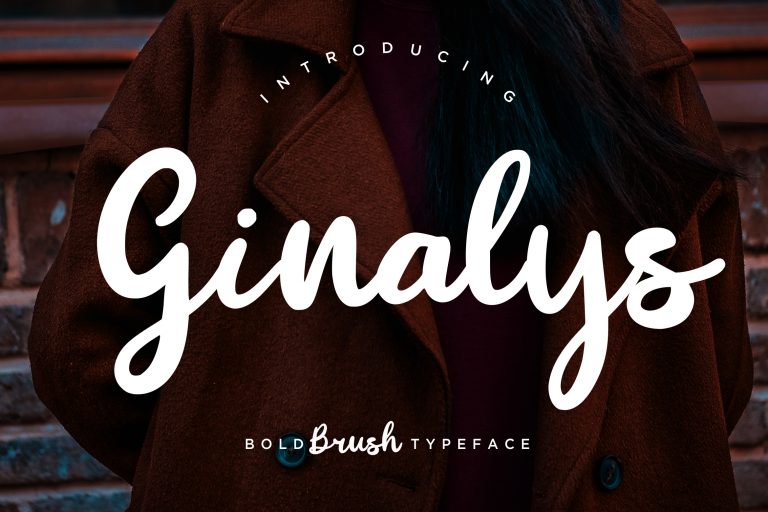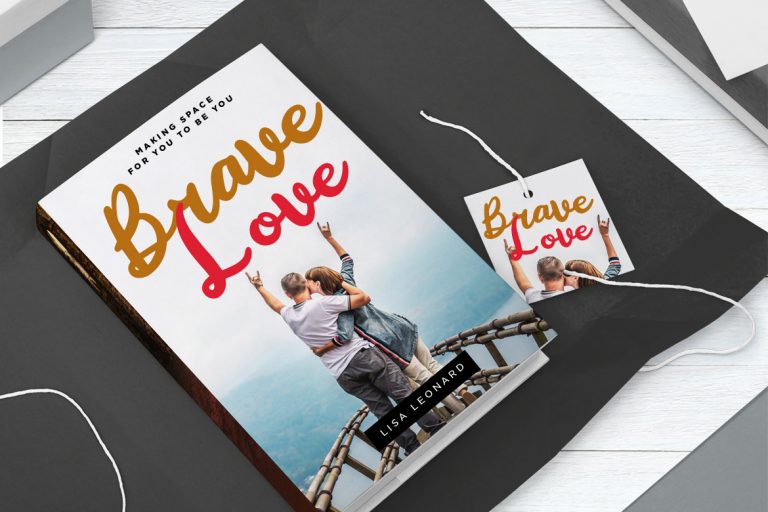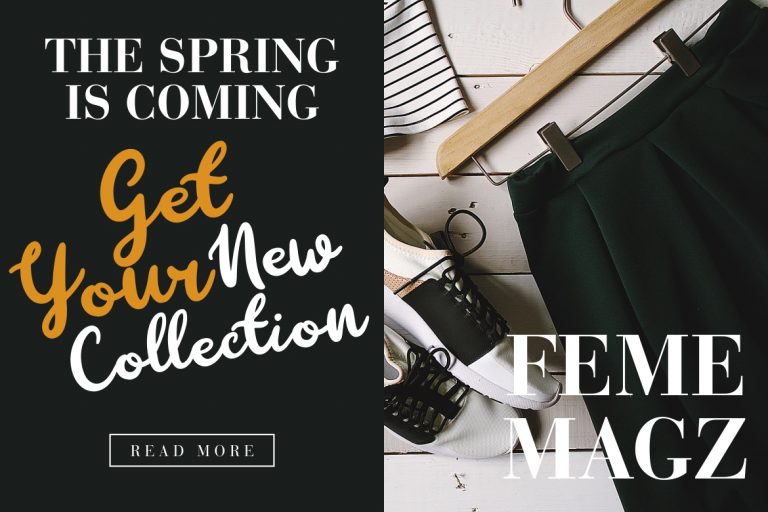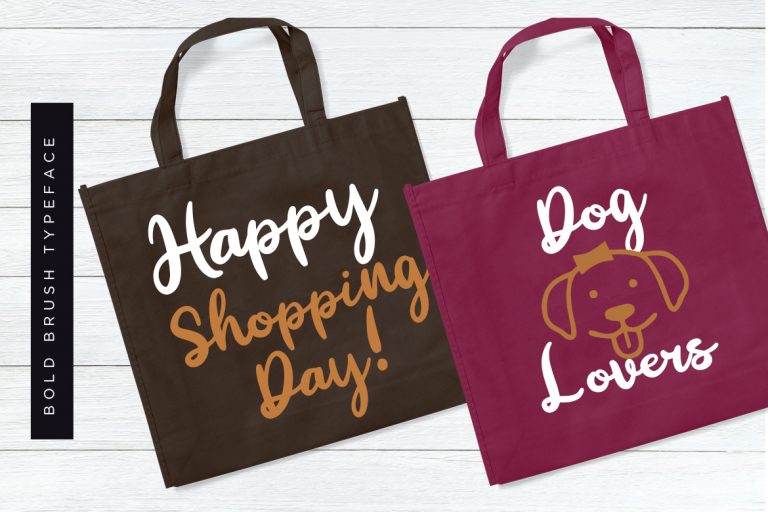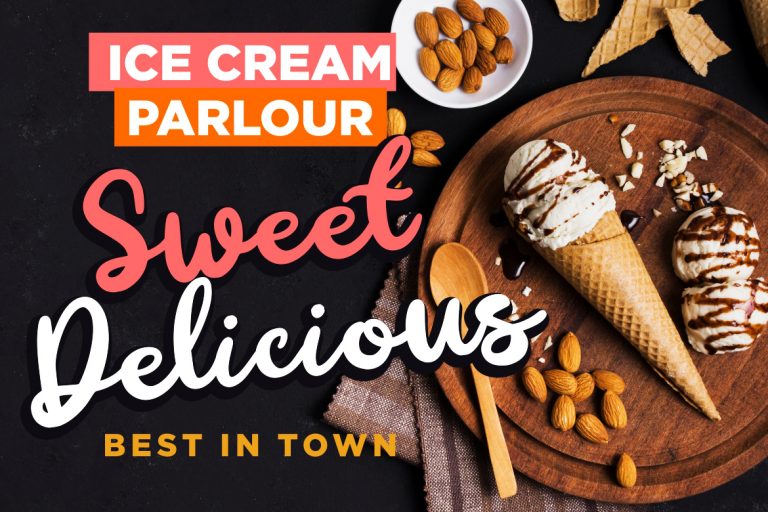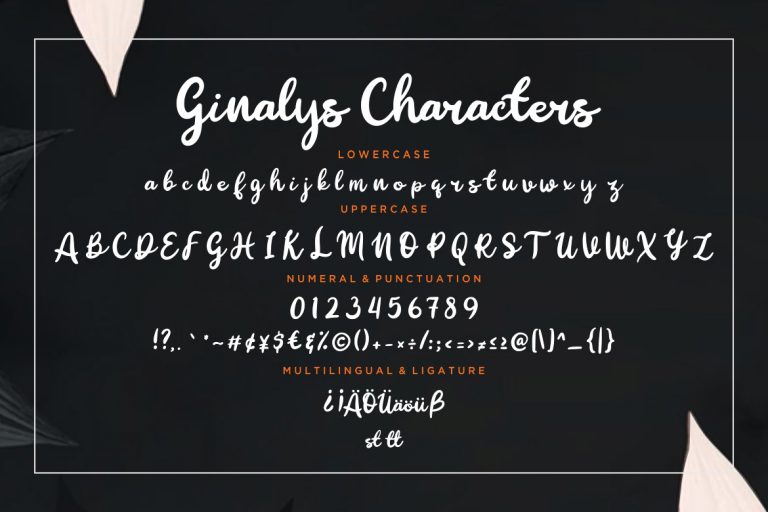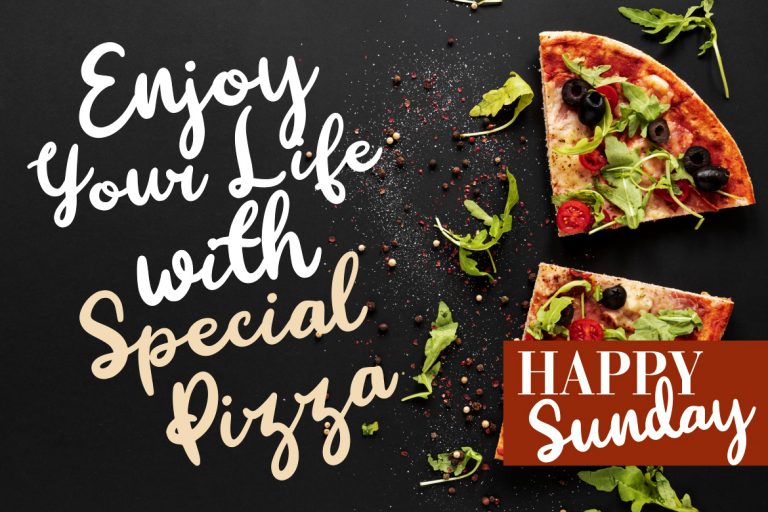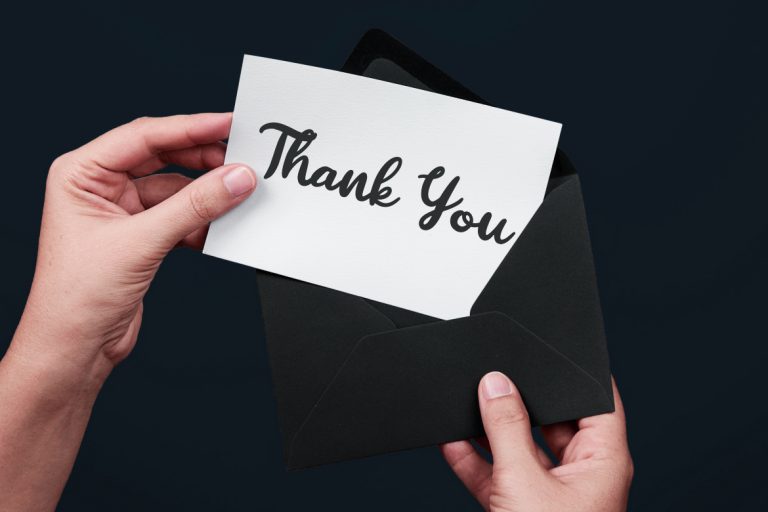
Ginalys is bold handwritten brush font with nice natural movement style.
Ginalys is perfect for branding projects, logo, wedding designs, social media posts, advertisements, product packaging, product designs, label, photography, watermark, invitation, stationery and any projects that need handwriting taste.
- Fonts include multilingual support for; ä ö ü Ä Ö Ü ß ¿ ¡
Ginalys Bold Brush